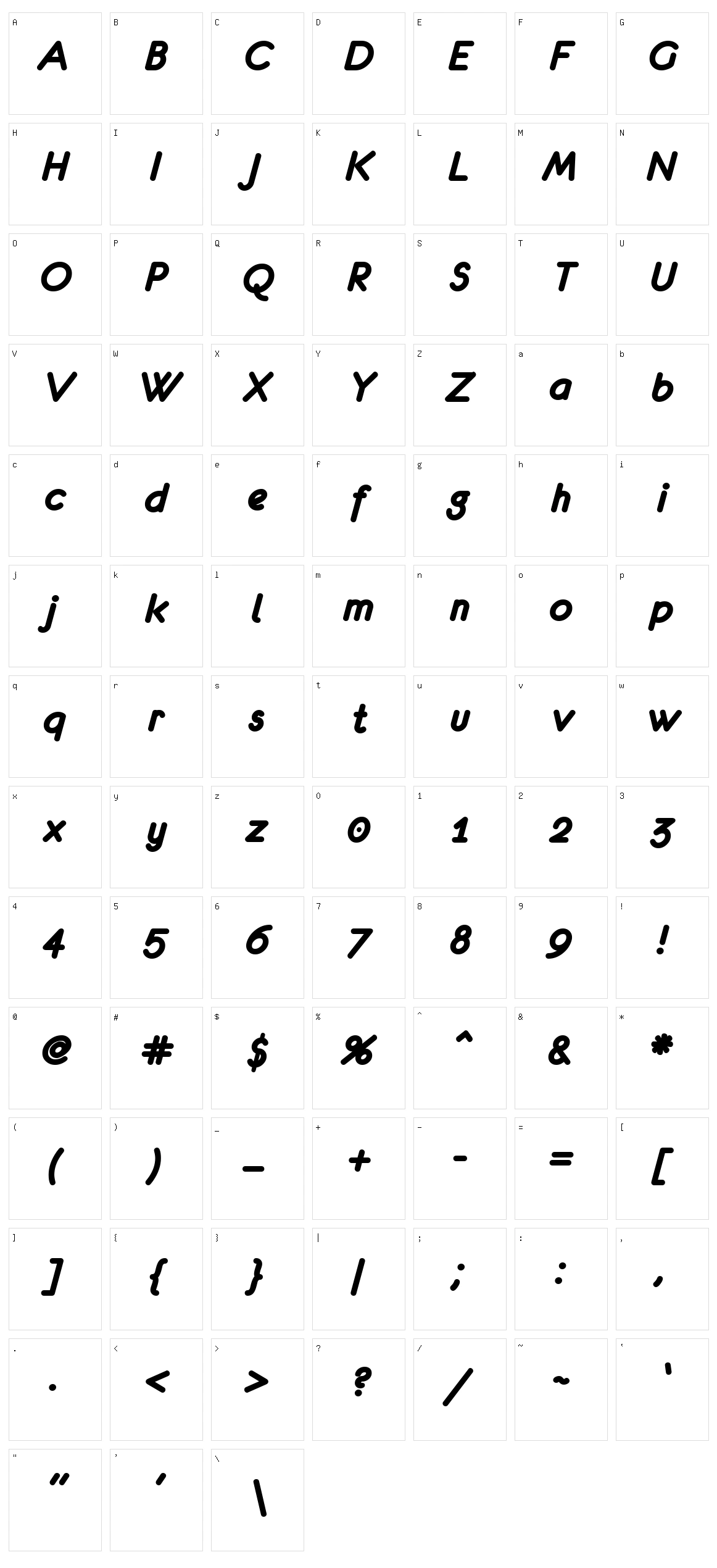
The eurofurence typeface family by tobias b koehler (unci@tigerden.com)
This is a family of geometric rounded sans serif fonts consisting of
three weights (light, medium, bold) in upright and italic styles,
originally designed for EuroFurence, the first European furry convention
1995 in Kaiser-Wilhelm-Koog.
The character set includes Roman, Greek and Cyrillic characters.